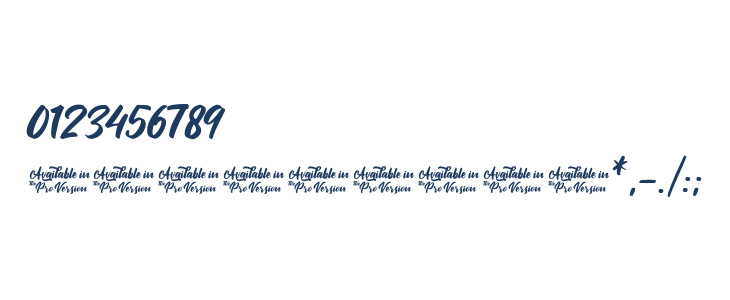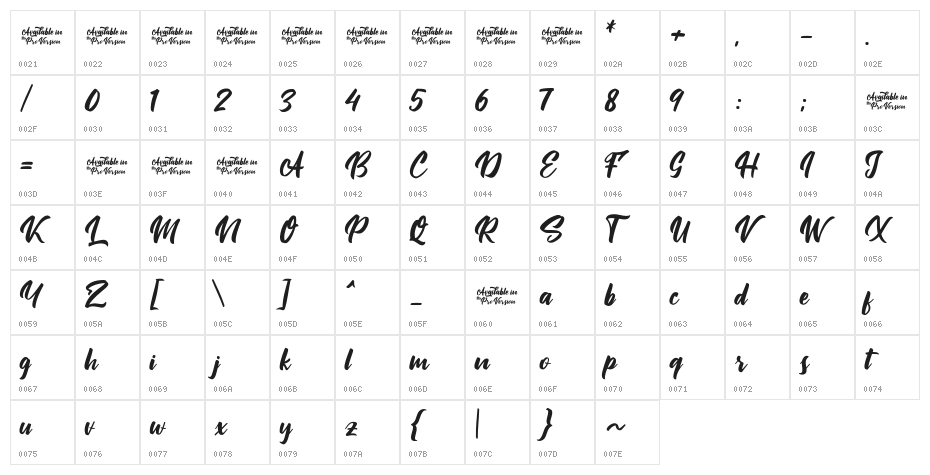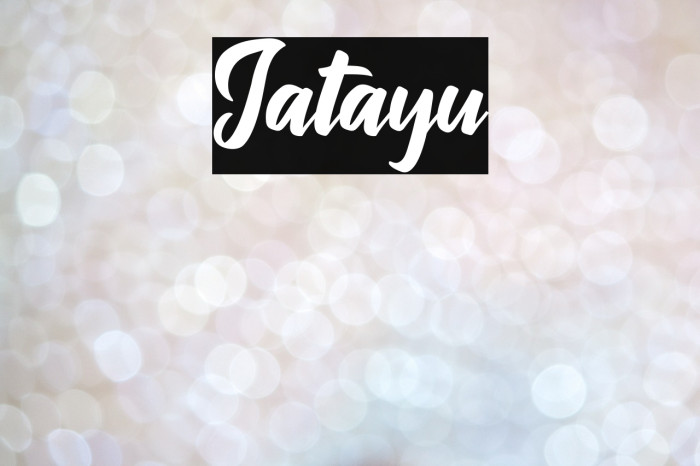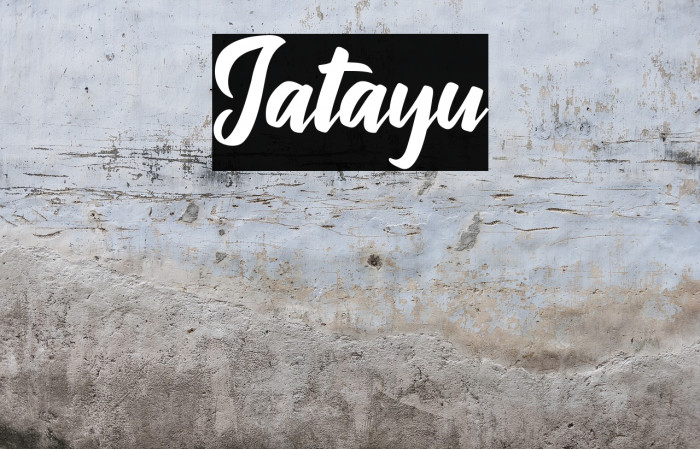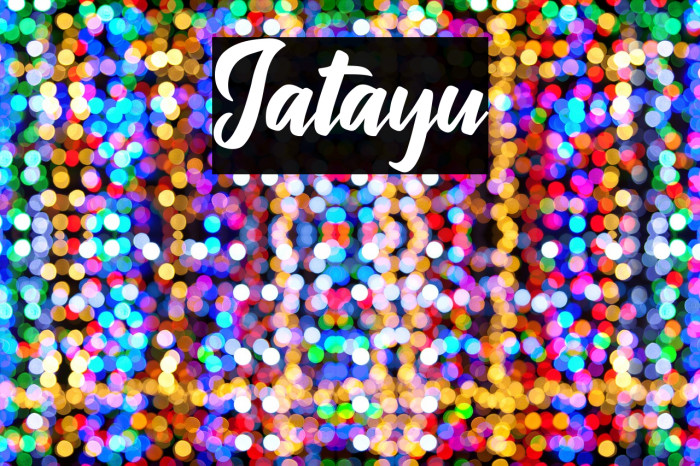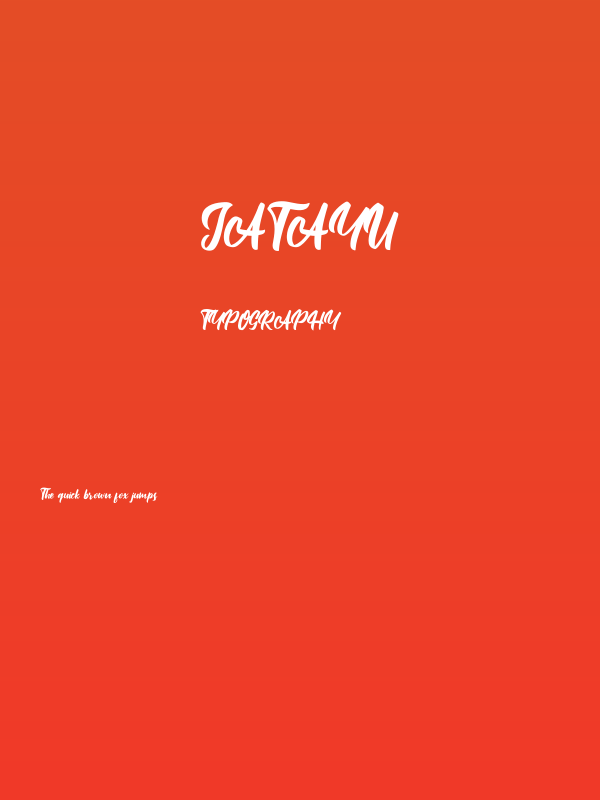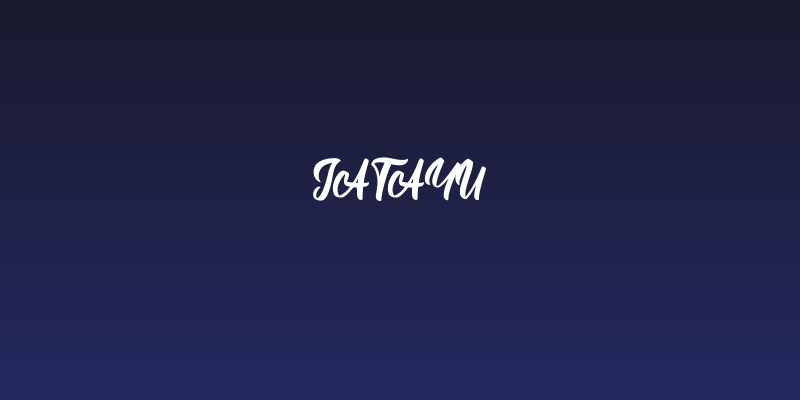
Jatayu Font
Jatayu Description
This font features a bold, flowing script style with a modern flair. The letters are connected in a cursive manner, giving it an elegant and dynamic appearance. The uppercase letters are prominent and stylish, while the lowercase letters maintain a consistent flow. The numerals are clear and bold, matching the overall aesthetic of the font. Special characters are included, maintaining the same fluid style. This font is ideal for projects that require a personal touch, such as invitations, branding, or artistic designs.
| Use Case | Logos, Invitations, Artistic designs |
| Proposed Projects | Ideal for wedding invitations, branding, logos, and artistic designs. |